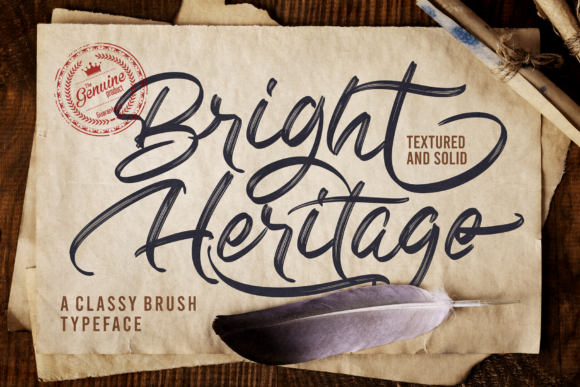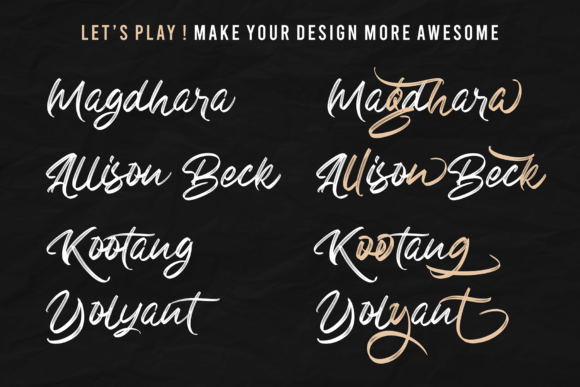
About Bright Heritage Font
Bright Heritage is a captivating brush-style handwritten font that adds a touch of authenticity and character to your designs. With its natural and organic brush strokes, this font brings a sense of energy and vibrancy to any project.
Whether you’re creating posters, social media graphics, logos, or any other design, Bright Heritage will make your ideas come to life. Its unique style gives it a realistic and handmade look, adding an element of charm and personality to your work.
The brush strokes in Bright Heritage have a dynamic and textured appearance, creating a sense of movement and spontaneity. This font is perfect for projects that require a touch of creativity and a lively aesthetic. It can be used in various design themes, from casual and playful to bold and expressive.
With Bright Heritage, you can easily convey a sense of authenticity and uniqueness in your designs. The irregularities and imperfections in the brush strokes give the font a handcrafted feel, making each letter feel like a work of art. This font is designed to capture attention and leave a lasting impression.
In addition to its visual appeal, Bright Heritage is also versatile in its application. It can be used for headlines, titles, quotes, and other prominent text elements. Its bold and legible characters ensure readability while maintaining a distinctive style.
Whether you’re a designer, artist, or creative enthusiast, Bright Heritage offers endless possibilities for your projects. Its PUA encoding allows you to access all the glyphs and swashes with ease, giving you the freedom to customize and experiment with different letterforms and decorative elements.
In conclusion, Bright Heritage is an authentic and dynamic brush-style handwritten font that adds a touch of realism and excitement to your designs. With its natural brush strokes and unique style, it creates spectacular and eye-catching visuals. Embrace the charm of this font and let your creativity shine through as you bring your ideas to life.